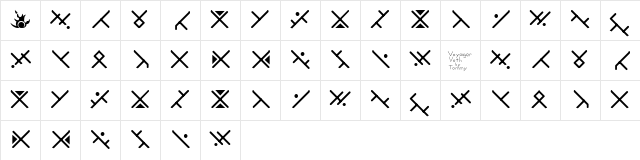
Voth ST Voyager Normal
Design Context for Voth ST Voyager Typeface
Voth ST Voyager is a composed and adaptable typeface that performs quietly and consistently across a wide range of design contexts.